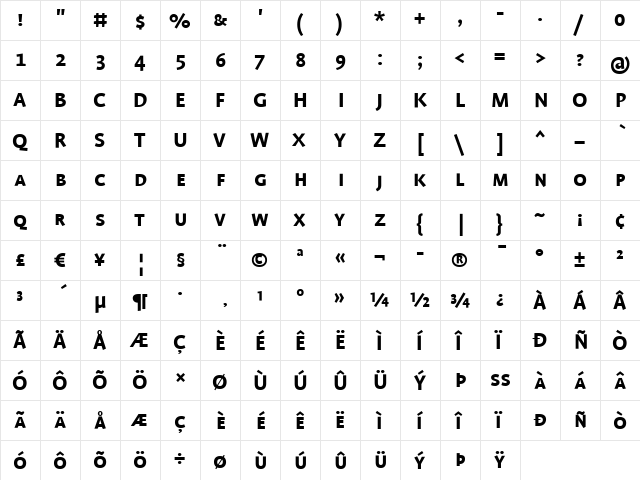
ProfileSC Bold
Design Context for ProfileSC Typeface
ProfileSC takes a measured approach to typography — its balanced proportions and neutral character make it a reliable workhorse for both digital and print work. The heavy weight commands attention and anchors typographic hierarchies.